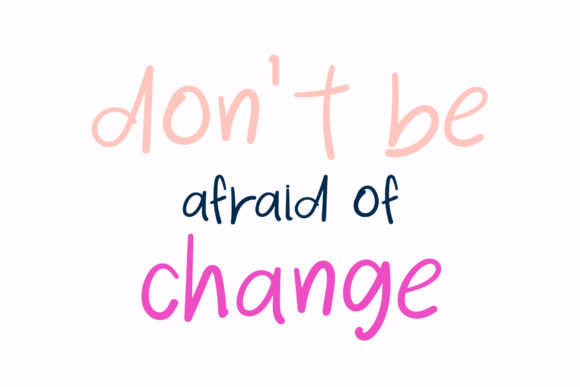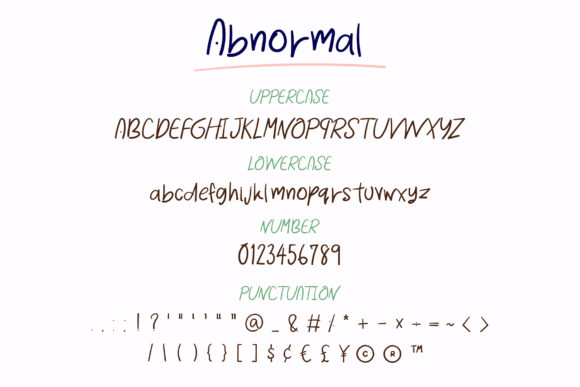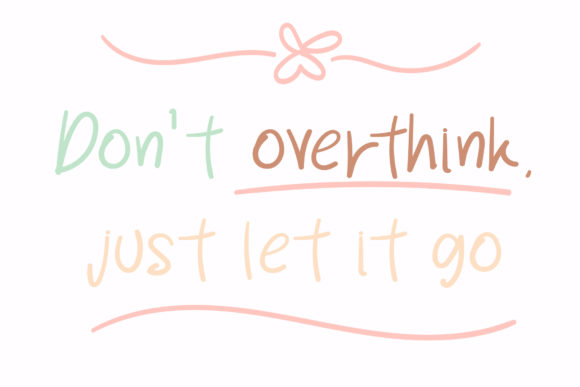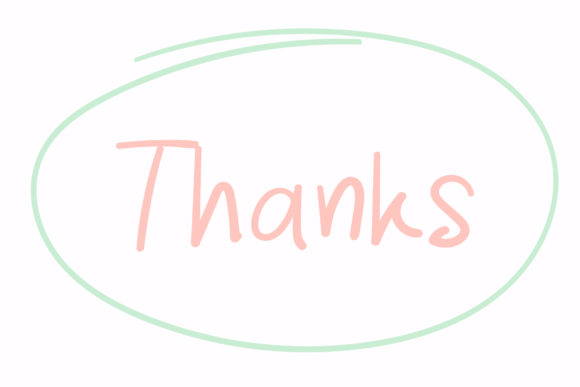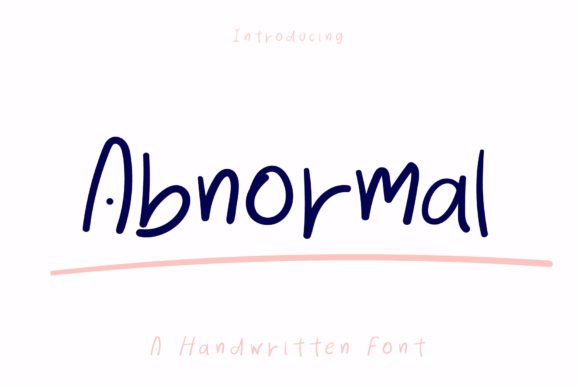
You know that feeling when a design idea just clicks? The colors, the layout, the typography – everything comes together to create something truly special. But sometimes, no matter how hard you try, your designs can feel a bit… ordinary. That’s where the right font can make all the difference.
Enter the Abnormal Font, a delightful handwritten font that’s sure to add a dash of joy to your designs. With its quirky charm and playful feel, this font is perfect for adding a personal touch to your creative projects. Whether you’re designing a logo, a social media post, or a wedding invitation, the Abnormal Font is the perfect way to make your designs stand out.
Key Features of Abnormal Font
- Unique Characteristics: The font features a unique, hand-drawn design with irregular shapes and asymmetrical letterforms, giving it a distinctive and eye-catching appearance.
Abnormal Font Review
Overall, I think “Abnormal Font” is a unique and interesting font that can add a touch of personality to certain designs.
- Highly customizable: The font offers a wide range of style and formatting options, making it easy to tailor to your specific design needs.
- Effective for creative and artistic projects: Abnormal Font’s quirky, hand-drawn feel makes it a great choice for projects that require a more unconventional look.
- Supports a wide range of languages: This font is compatible with multiple languages, making it a versatile choice for international projects.
- May be difficult to read at small sizes: The font’s unique style can make it challenging to read at smaller font sizes, which may limit its use in certain applications.
- Lack of consistency: While the font is customizable, the different styles and formats can sometimes feel inconsistent, which may detract from its overall effectiveness.
While Abnormal Font has its limitations, I think it’s a great choice for projects that require a creative, artistic touch. With careful use and customization, it can add a unique and eye-catching element to your designs.
Abnormal Font can be used for a variety of purposes, including:
– Creating eye-catching headlines and titles
– Adding a touch of whimsy and personality to your designs
– Making text stand out in crowded or busy environments
– Creating a unique and memorable brand identity
Tips for Getting the Most Out of Abnormal Font
To get the most out of Abnormal Font, try the following tips:
– Use it sparingly to add emphasis and interest to your designs
– Pair it with other fonts to create a unique and harmonious typography
– Experiment with different font sizes and colors to create visual interest
– Use it to create a cohesive brand identity across all your marketing materials
Alternatives to “Abnormal Font” for Designers
1. Display Font
A display font is a type of font designed to be visually striking and attention-grabbing. It’s often used for headings, titles, and other elements where you want to draw attention. Display fonts are more stylized and ornate compared to Abnormal Font, which is more of a utilitarian font.